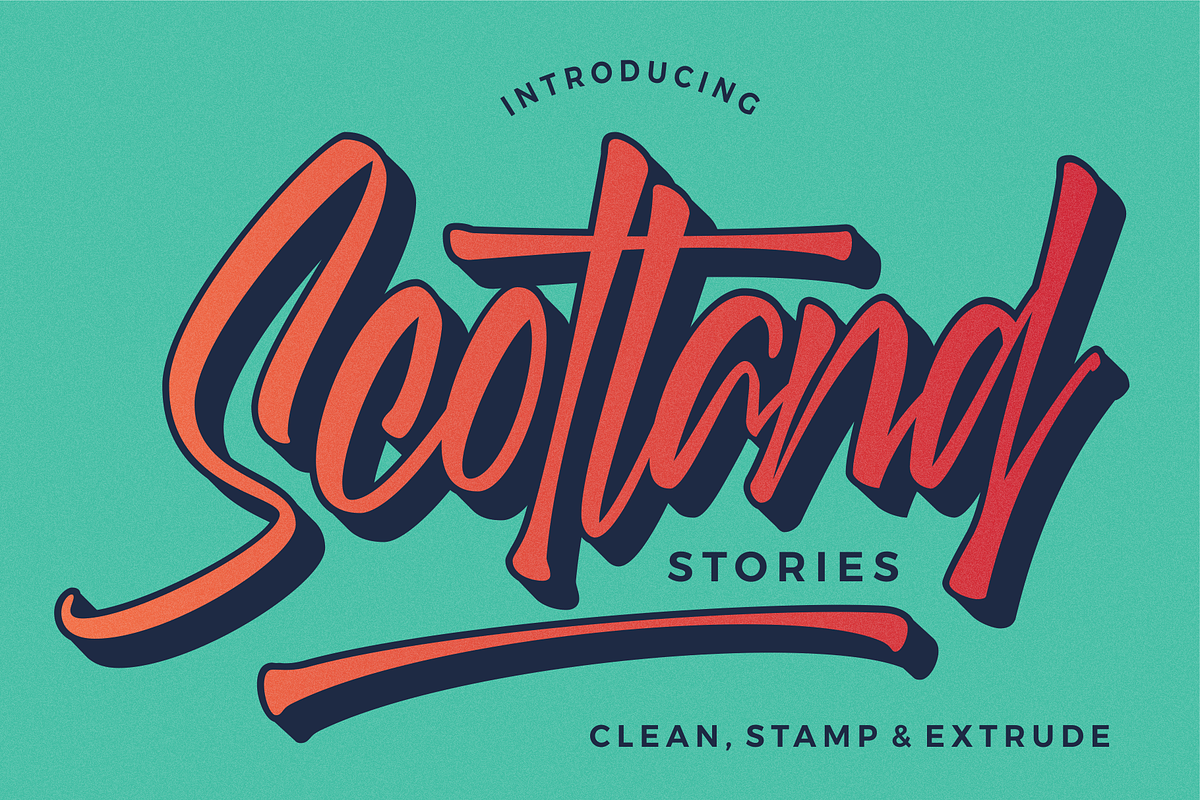
Scotland Stories | Modern Script Free Download
Scotland Stories | Modern Script Font Free Download
Scotland Stories | Modern Script Font Free Download is an elegant and flowing typeface designed to add sophistication and creativity to your designs. With its smooth curves, delicate strokes, and contemporary charm, Scotland Stories is perfect for wedding invitations, branding, social media posts, logos, and artistic projects that need a personal, handwritten feel.
The modern calligraphy style blends elegance with readability, making it ideal for both formal and casual designs. Whether you're designing for a luxury brand, a personal blog, or a creative venture, Scotland Stories elevates your typography with grace and style.
Designers love Scotland Stories for its versatility and romantic, hand-crafted appeal across both print and digital formats. Ready to add a touch of modern elegance to your work? Download Scotland Stories | Modern Script Font Free Download and bring beauty to your next design.